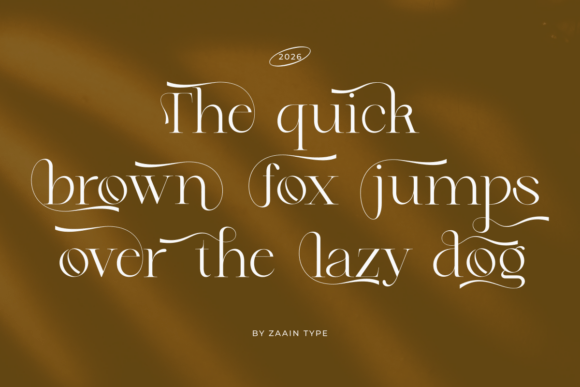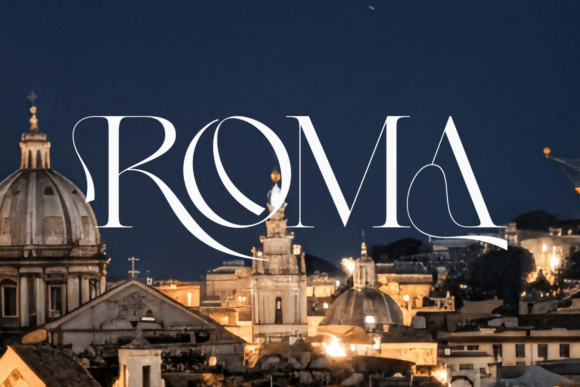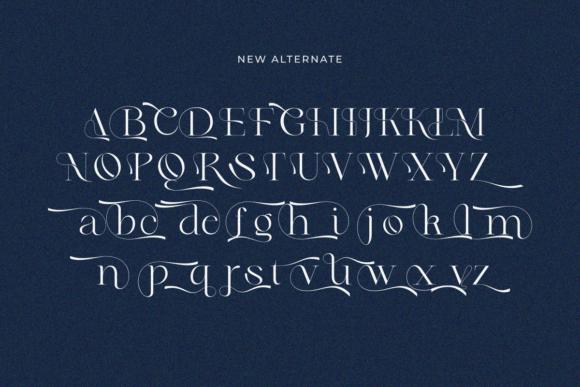
Introduction to Klyra Font
Have you ever stumbled upon a beautiful typography that made you pause, take a deep breath, and let the words sink in? For designers, those moments of serendipity can be a game-changer. The Klyra Font is one of those rare finds that can elevate your creative projects from good to exceptional. With its refined serif design, Klyra Font blends timeless elegance with a modern luxury touch, making it the perfect choice for branding, editorial layouts, and premium logos.
As a valuable design resource, Klyra Font offers a high-quality solution for designers seeking to add a touch of sophistication to their work. Its high-contrast details and graceful curves create a beautiful balance between classic beauty and contemporary aesthetics, making every word feel confident, memorable, and visually stunning.
Key Features of Klyra Font
- High-quality, professional font design suitable for various creative projects.
- Includes a range of characters and glyphs, including Latin and Cyrillic scripts, for global design applications.
- Perfect as a design resource for graphic designers, UI/UX designers, and digital artists working on various creative projects.
Honest Review: Klyra Font
As a designer, I’m always on the lookout for high-quality design resources to enhance my creative projects. Recently, I came across the Klyra Font, and I’m excited to share my honest review.
- ✨ High-quality typography: The Klyra Font boasts sleek and modern lines that make it perfect for a wide range of creative projects.
- ✨ Customizable: This font comes in various weights and styles, allowing me to easily switch between different design needs.
One of the standout features of the Klyra Font is its versatility. It’s suitable for both digital and print projects, and its high-quality typography ensures that it will always look great.
- ⚠️ Limited language support: While the font is great for English, it may not be as effective for other languages.
Overall, I’m impressed with the Klyra Font and would definitely recommend it to fellow designers looking for a high-quality, versatile font for their creative projects.
Tips for Getting the Most Out of Klyra Font
For the best results, use the Klyra Font with a transparent background to create a seamless design. You can also experiment with different font sizes, colors, and styles to add depth and visual interest to your design.
Common Use Cases for Klyra Font